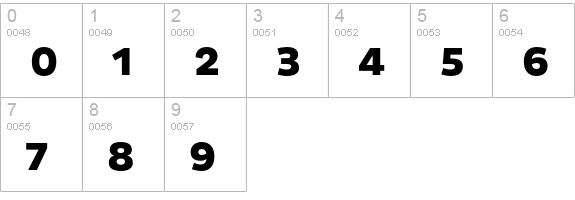
Pluto Sans Heavy is a heavy, high-impact variant in the Pluto typeface family \xE2\x80\x94 well suited to high-impact headlines, posters, and display advertising.
Introducing Pluto Sans Heavy font, a bold and powerful typeface designed to make a statement. With its strong and commanding presence, this font is perfect for headlines, titles, and branding projects that demand attention. The thick strokes and clean lines of Pluto Sans Heavy exude confidence and authority, making it an ideal choice for designs that need to stand out. And the best part? Pluto Sans Heavy font is available for free download at FontsMarket.com. That's right, you can easily add this versatile and impactful font to your collection without spending a penny. Whether you're working on a poster, logo, or any other project that requires a bold touch, Pluto Sans Heavy has got you covered. Download it today and take your designs to the next level!